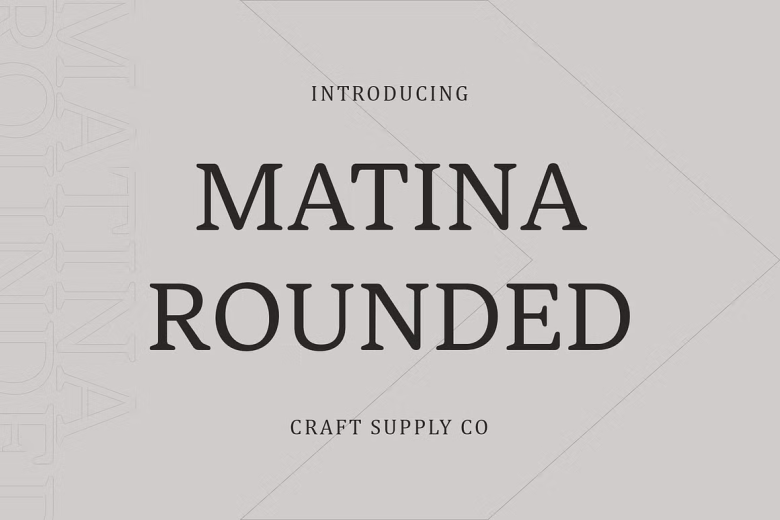
Matina Rounded Font
Matina Rounded is a font that harmonizes softness with readability, making it an excellent choice for body text. Its gentle contrast and smooth flow provide a comfortable reading experience, allowing the text to be absorbed with ease. The rounded features of Matina contribute to its overall readability, making it suitable for long-form content where clarity is paramount.
The font’s design leans heavily into soft serif aesthetics, exuding warmth and approachability. The gentle serifs and soft curves of Matina Rounded create an inviting look, ensuring that the reader’s eye can glide effortlessly across the text. This welcoming appearance makes the font particularly well-suited for extended reading sessions, where comfort and readability are key.
Matina Rounded was carefully crafted with body text in mind, aiming to convey information effectively while minimizing eye strain. Its low-contrast style ensures that the font remains easy on the eyes, making it ideal for various content types. Whether used in print or digital formats, Matina Rounded stands out as a font that enhances the reading experience. Available for free personal use, Matina Rounded can also be purchased for full access and commercial licensing HERE.